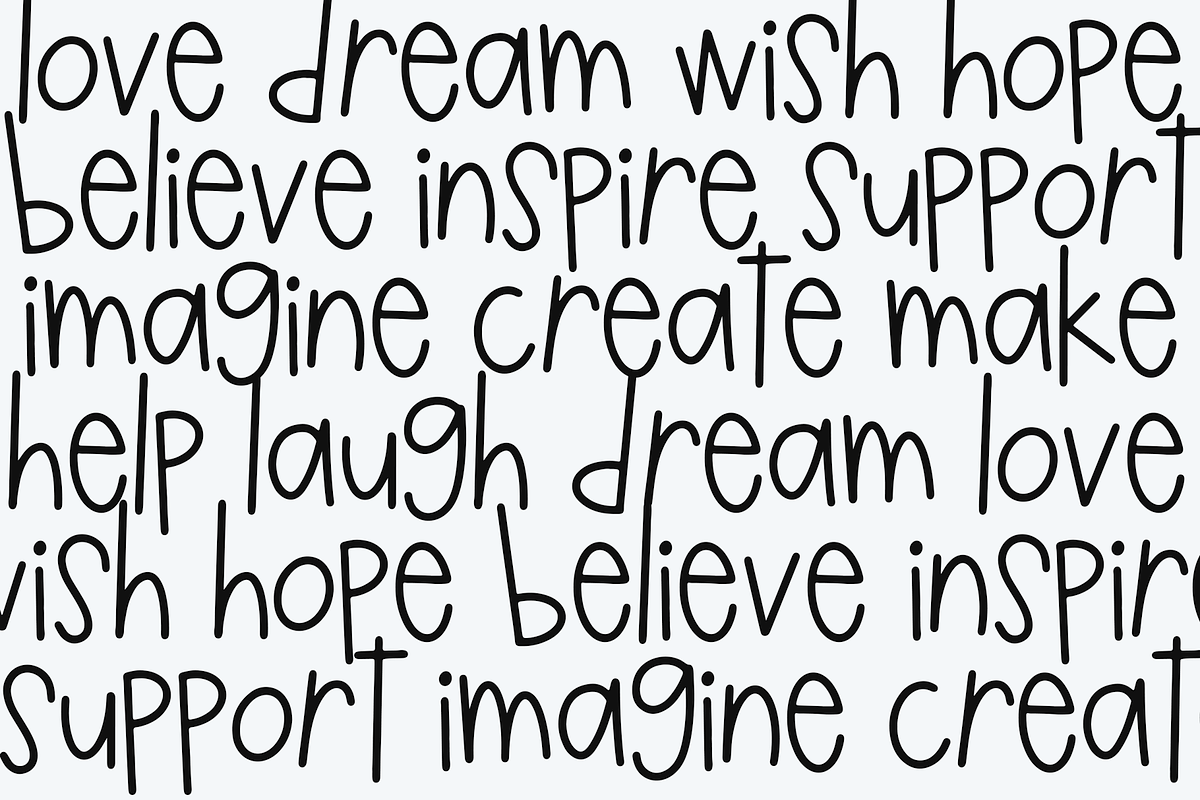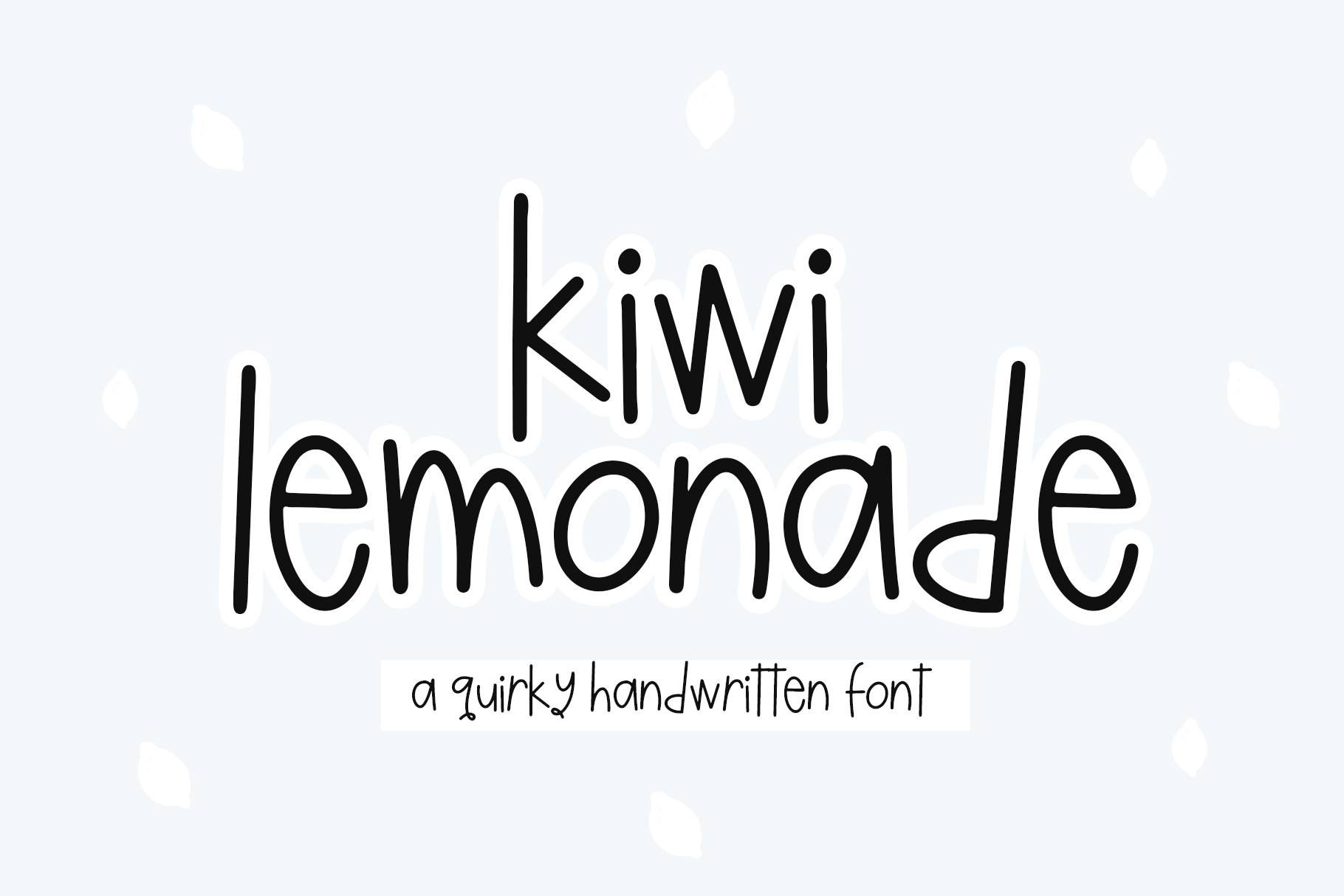
Kiwi Lemonade | Handwritten Font
Kiwi Lemonade is a fun and quirky handwritten font!
This font is perfect for branding, logos, svg files, shirts, signs, children's decor and more!